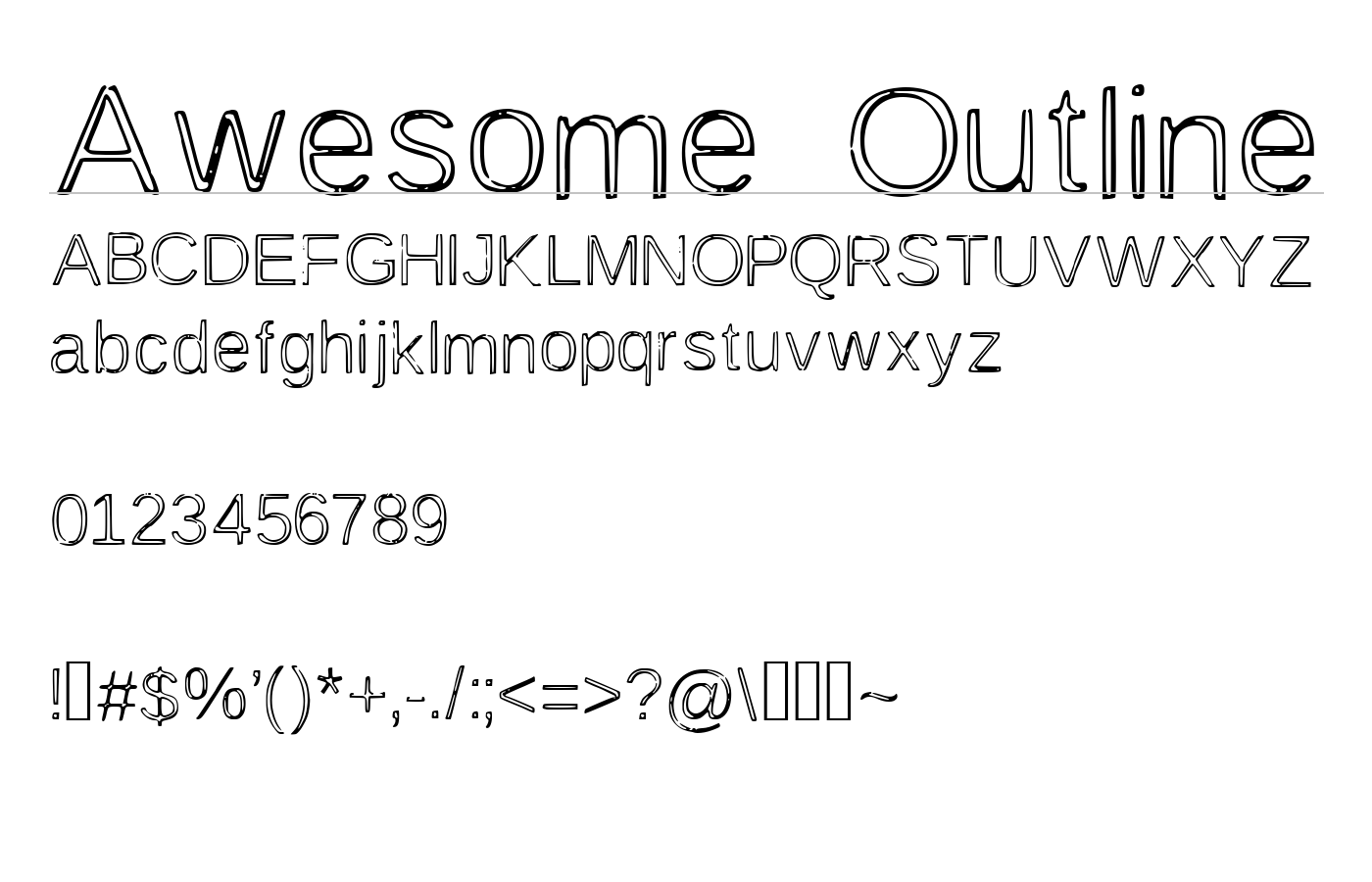
Awesome Outline Font is a playful, hand-drawn sans serif typeface characterized by its thin, sketch-like outlines and irregular strokes that give it an informal, artistic feel. Its light weight and airy spacing make it perfect for creative and casual designs, adding a unique, handcrafted touch to logos, posters, and headlines. This font works well in projects that want to convey a friendly, whimsical, and approachable vibe.
Awesome Outline Font
About Awesome Outline Font